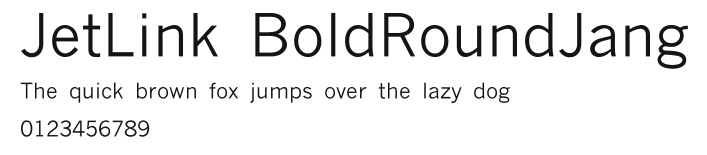
• Font Name: JetLink BoldRoundJang
About JetLink BoldRoundJang.ttf
JetLink BoldRoundJang.ttf is a modern, elegant sans-serif font designed for ultimate readability and visual harmony. Perfect for branding, headlines, web design, and print materials.